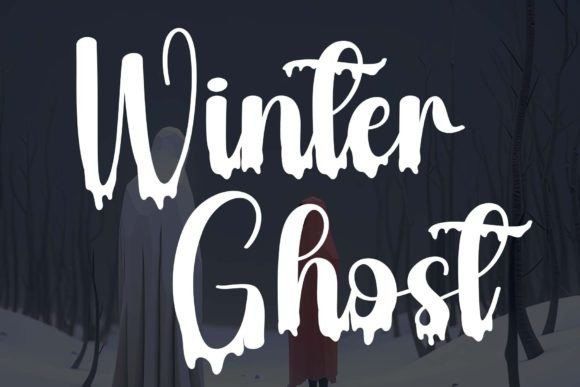
Introducing Winter Ghost Font, the ultimate font for unleashing your creative genius! Crafted by the talented andikastudio, this display font is unlike anything you've ever seen before. With its captivating design and versatility, Winter Ghost Font is set to revolutionize the world of logo design in 2017 and beyond.
Prepare to be enchanted by the mesmerizing beauty of Winter Ghost Font. Its intricate details and elegant curves will instantly captivate your audience, leaving a lasting impression on anyone who lays eyes on your creations. Whether you're designing a logo for a brand, a website, or any other project, this font will elevate your work to a whole new level of sophistication.
But Winter Ghost Font is not just visually stunning; it's also incredibly functional. With its extensive range of characters and glyphs, you'll have endless possibilities to play with. Let your imagination run wild as you experiment with different styles and combinations, creating truly unique and eye-catching designs. This font is the secret weapon you need to make your brand stand out from the crowd.
What sets Winter Ghost Font apart from the rest is its ability to evoke powerful emotions. With each letter, it tells a story, evoking a sense of mystery, elegance, and sophistication. Imagine the impact your logo will have when it effortlessly communicates these emotions to your audience. Winter Ghost Font is not just a font; it's a tool for creating unforgettable experiences.
Forget about ordinary fonts that blend in with the crowd. Winter Ghost Font is here to disrupt the norm and redefine what's possible in the world of design. Show the world that you're a trendsetter, a visionary, and a true creative genius. Let Winter Ghost Font be your trusted companion as you embark on a journey to design greatness.